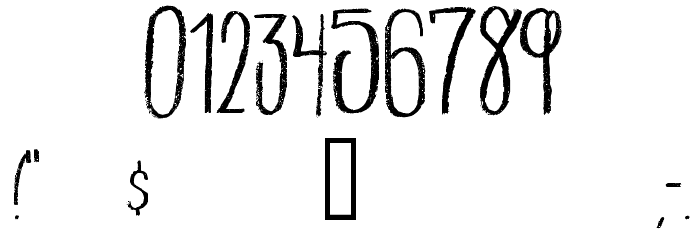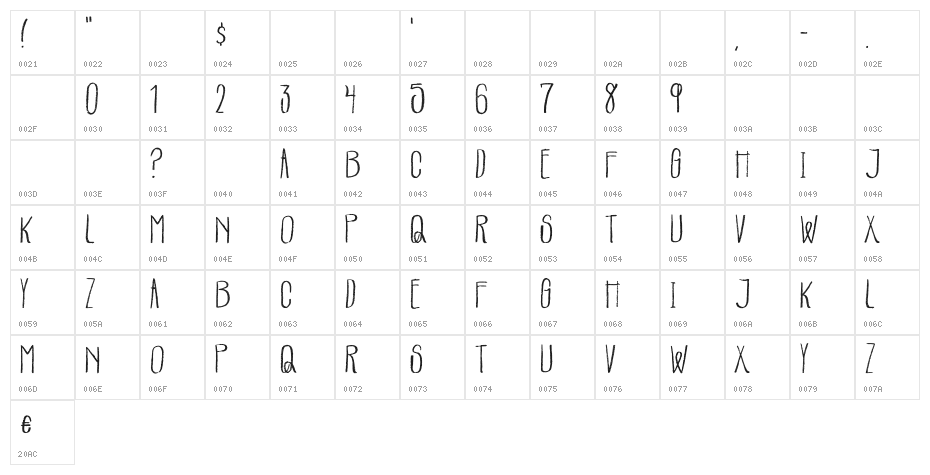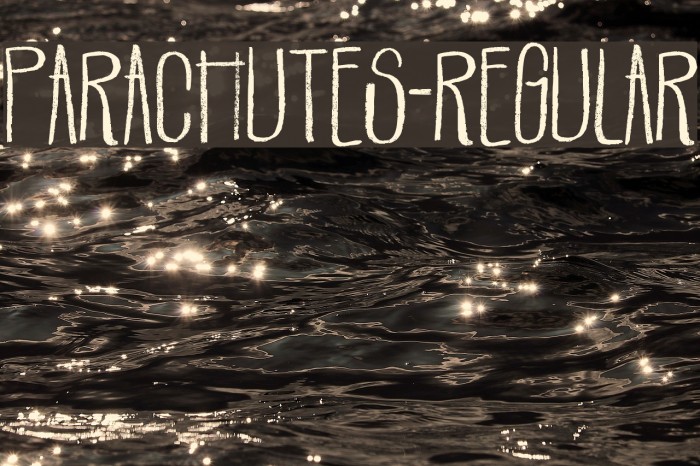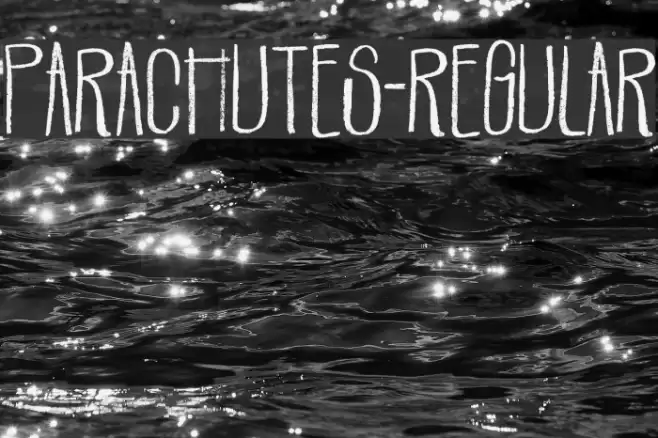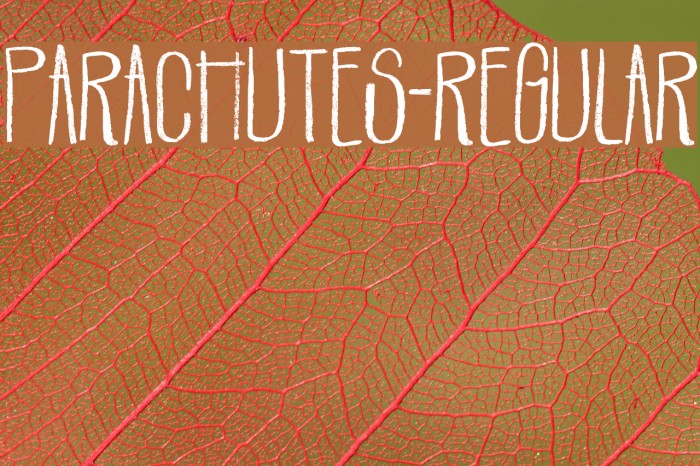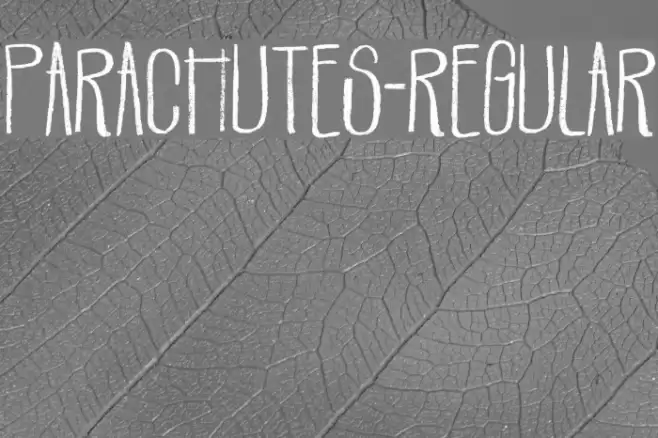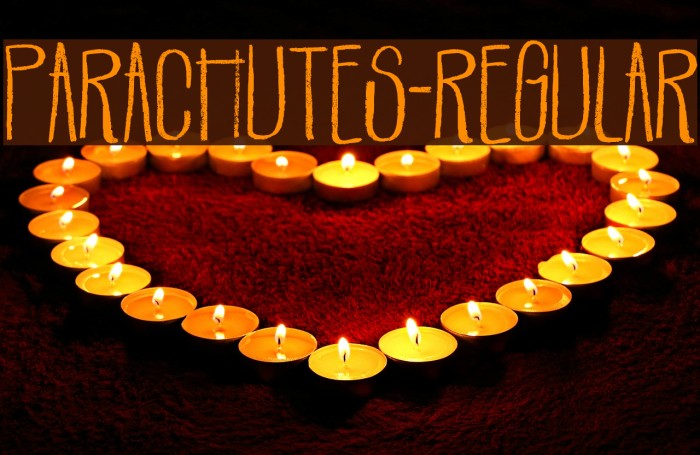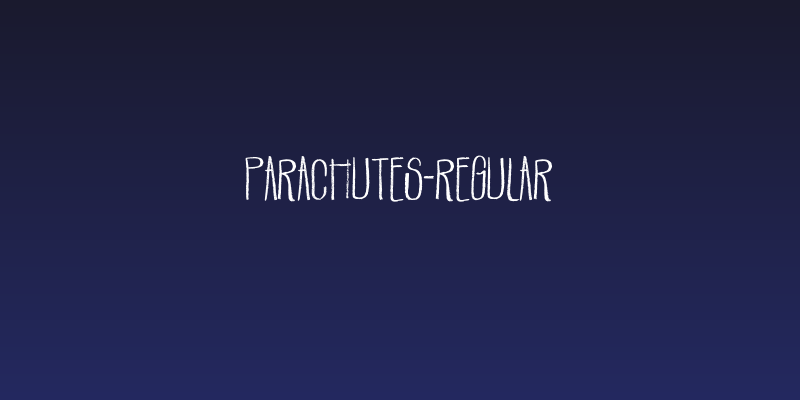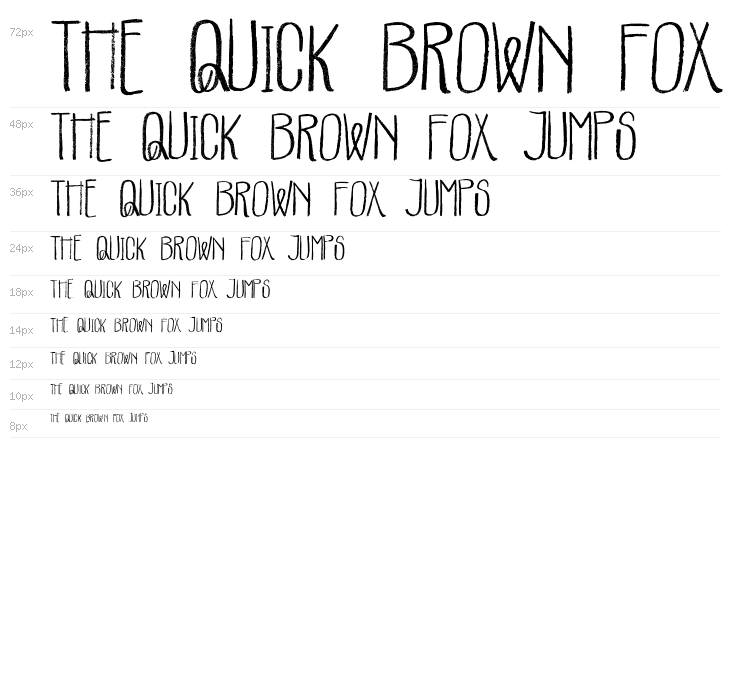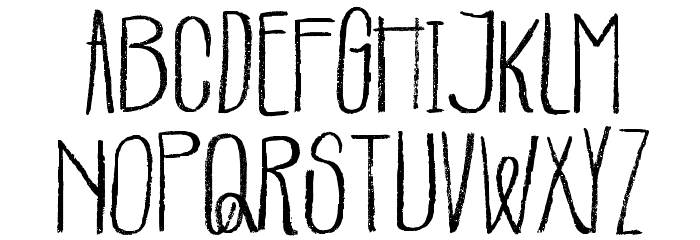
Parachutes-Regular Font
Parachutes-Regular Description
This font features a unique, hand-drawn style with elongated, narrow characters that give it a whimsical and artistic feel. The strokes are uneven, adding a textured, almost sketch-like quality to the letters. The uppercase and lowercase letters maintain a consistent height, contributing to a uniform appearance despite the playful design. The numbers follow the same stylistic approach, ensuring cohesion across all characters. Special characters are included, maintaining the same artistic flair. This font is ideal for projects that require a creative and informal touch, such as posters, invitations, or branding for artistic ventures.